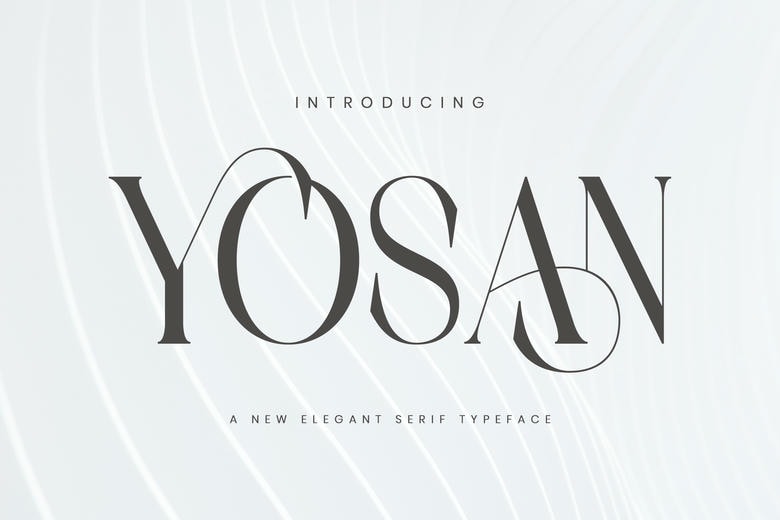
Yosan Font
Yosan is a serif font that combines classic elegance with a modern feel. Its graceful serifs, balanced shapes, and carefully designed letters bring the timeless look of traditional type to today’s designs.
This font works well for logos, editorials, invitations, and branding. Its versatile style and fine details give any project a polished and distinctive look.
Yosan Serif Font